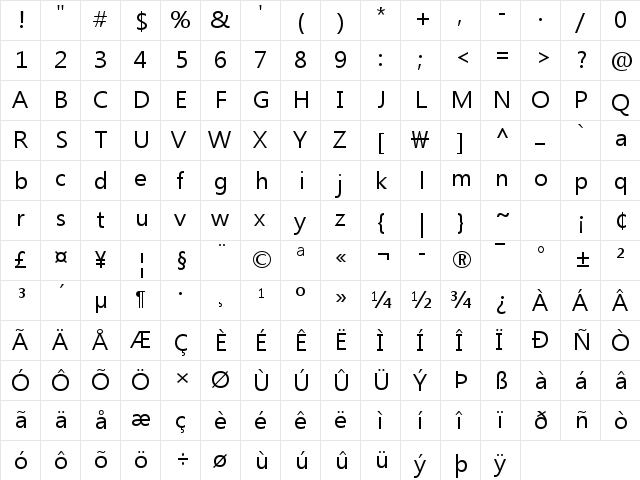
Malgun Gothic Regular
| Foundry | Microsoft Corporation |
| Designer | Kyoung-bae Lee; Daekwon Kim |
Design Context for Malgun Gothic Typeface
Malgun Gothic takes a clean, functional approach — its unadorned letterforms prioritise legibility and work reliably across screen and print environments.
Font Pairing: Works well alongside a characterful serif or display font that can carry the expressive load while Malgun Gothic handles the functional copy.
Pro Tip: Use Malgun Gothic for UI labels, navigation, and short-form body copy where clean legibility is the priority.